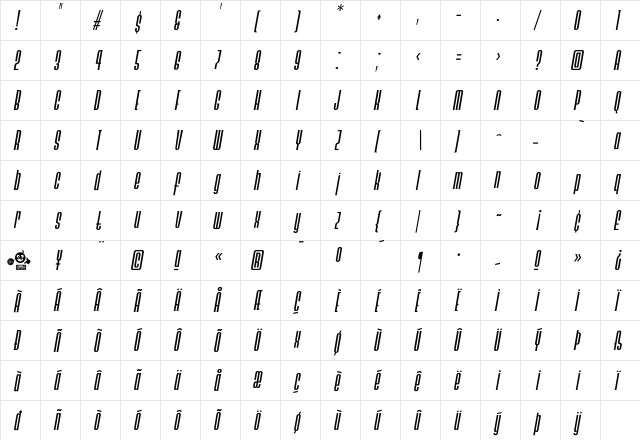
Ainsdale Italic
Design Context for Ainsdale Typeface
Ainsdale takes a measured approach to typography — its balanced proportions and neutral character make it a reliable workhorse for both digital and print work. The slanted form adds forward momentum and visual energy.
Pro Tip: Try Ainsdale for annotation and caption copy alongside an upright companion — the contrast in angle creates a dynamic but ordered typographic system.